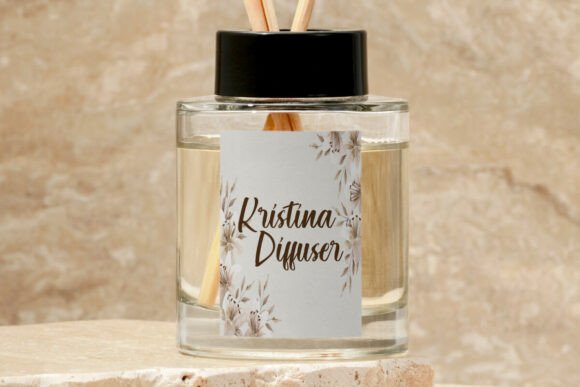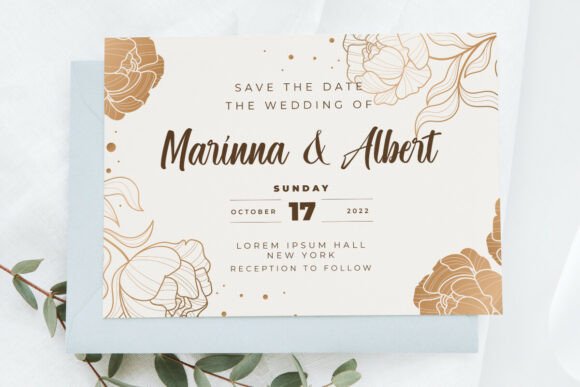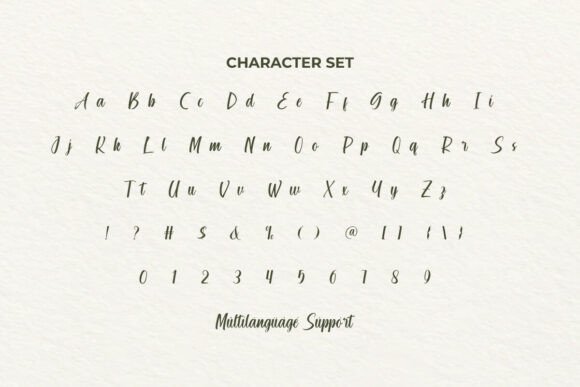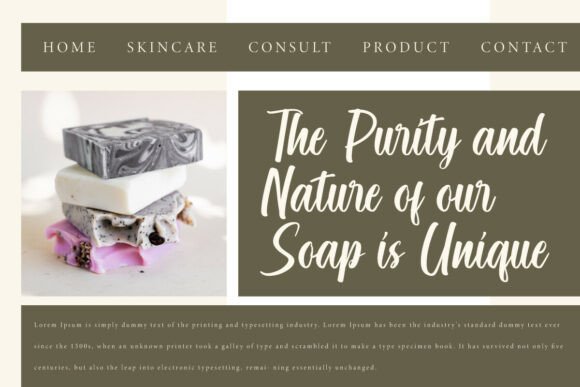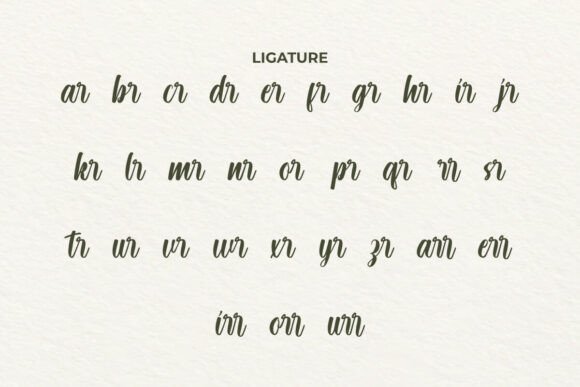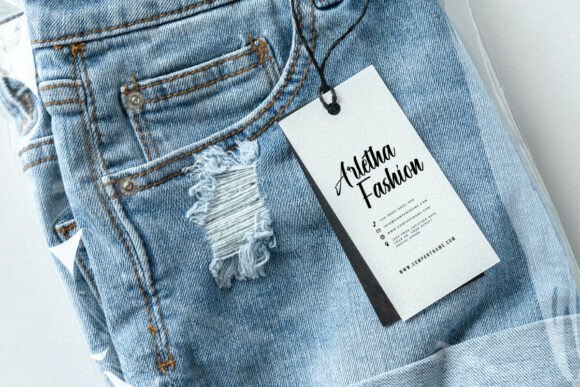
Introduction to Hidden Starling Font
Do you remember that moment when you stumbled upon the perfect font, and it instantly inspired your creative project? For designers, discovering the perfect font can be a game-changer. It’s the missing piece that brings your vision to life, elevating your work from good to great. That’s exactly what the Hidden Starling Font does – it adds a touch of elegance and sophistication to any design.
As a beautiful handwritten calligraphic script font by NoahType, Hidden Starling Font is a design treasure trove. Its charming appearance and feminine impression make it a versatile choice for various industries, from advertising to fashion, and even event or wedding organizers. Whether you’re working on a free download or a high-quality design resource, this font is sure to impress.
With its transparent background and high-quality design, Hidden Starling Font is a valuable addition to any designer’s toolkit. Its versatility and charm make it a go-to choice for designers seeking a unique and creative solution for their projects.
Key Features of Hidden Starling Font
- Unique, hand-drawn design with a transparent background, perfect for graphic designers and artists
- Designed to be versatile, suitable for various design applications, including logos, branding, and digital art
- Comes in a range of sizes, from 12pt to 72pt, with a high resolution of 300 DPI
- Designed to be scalable, ensuring crisp and clear text even at larger sizes
Honest Review: Hidden Starling Font
I recently stumbled upon the Hidden Starling Font, and I must say it’s a gem for any creative project. The free download is a huge plus, making it accessible to designers of all levels.
The font itself is a high-quality design resource, boasting a beautiful, intricate design. One of the standout features is the transparent background, which allows for seamless integration with other design elements.
- May be too ornate for simple text-based designs
- Can be difficult to read in smaller font sizes
- May not be suitable for body text due to its intricate design
Overall, I’m impressed with the Hidden Starling Font. It’s a great addition to any designer’s toolkit, especially for projects that require a touch of elegance and sophistication. Just be mindful of its limitations, and you’ll be sure to create stunning designs with this font.
Tips for Getting the Most Out of the Hidden Starling Font
For a high-quality and creative project, use the Hidden Starling Font in conjunction with a transparent background to create a stunning design. This font is perfect for designers looking for a unique and free design resource.
The Hidden Starling Font is ideal for designers working on creative projects that require a touch of elegance and sophistication. It’s perfect for use in logos, branding materials, and marketing materials where a unique and eye-catching design is required.
Q: Does the Hidden Starling Font have a transparent background?
Yes, the Hidden Starling Font has a transparent background, making it ideal for use on images with complex backgrounds or for creating custom designs with a seamless look.